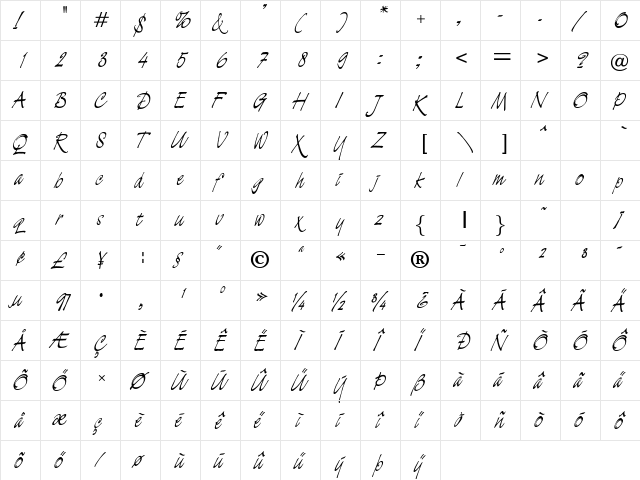
Dewellian Regular
Design Context for Dewellian Typeface
Dewellian is a composed and adaptable typeface that performs quietly and consistently across a wide range of design contexts.